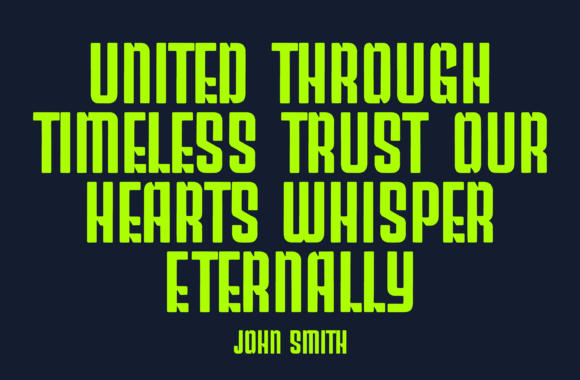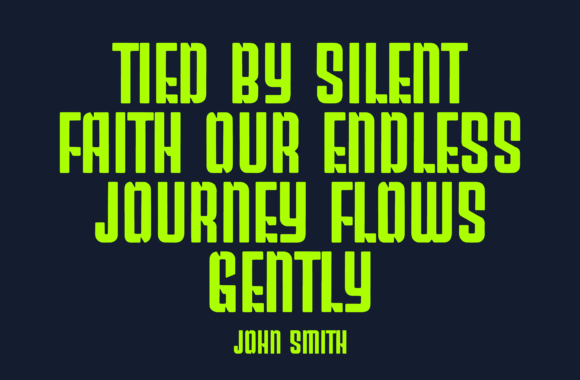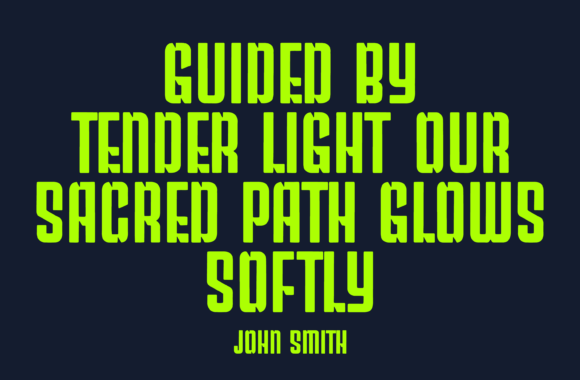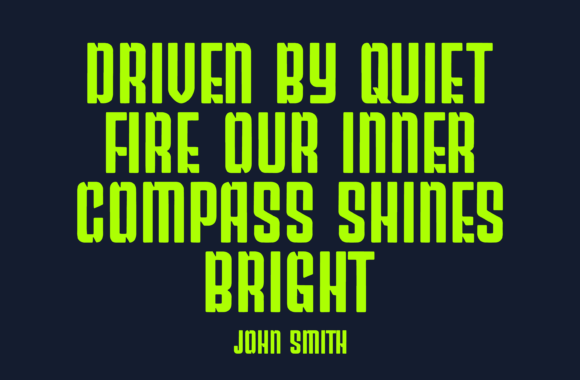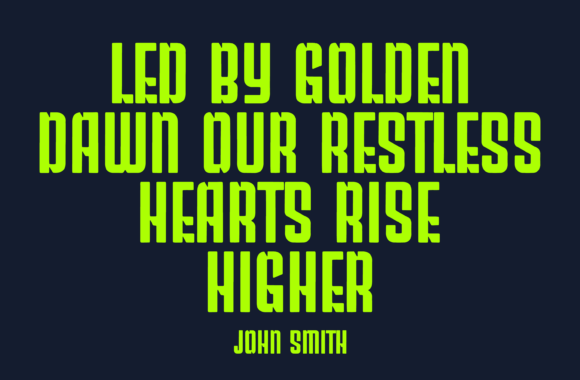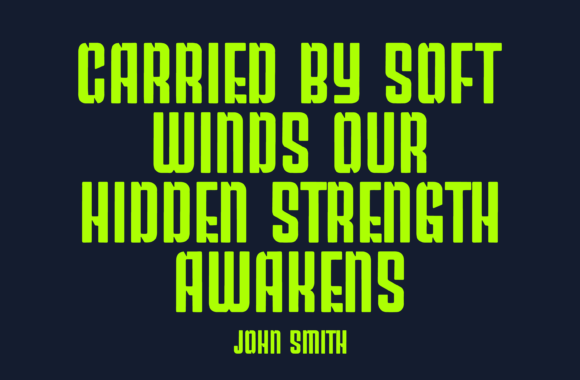
The Powerhouse of Display Fonts: A Deep Dive into Calabria Font
I’ll never forget the struggle I faced while working on a sports branding project. My client wanted a bold, eye-catching font that could convey energy and dynamism. After scouring through countless font libraries, I stumbled upon Calabria Font. Its towering, ultra-condensed design and muscular curves immediately caught my attention. I knew I had found the perfect fit. In this article, I’ll share my experience with Calabria Font, its features, and how to make the most of it in your designs.
First Impressions: What I Love About Calabria Font
Calabria Font is a force to be reckoned with. Here are some aspects that I absolutely love:
- ✨ Powerful Presence: The heavy weight and rounded edges of Calabria Font give it a commanding presence, perfect for headlines and posters.
- ✅ Versatility: Its modern design makes it suitable for various applications, including sports, streetwear, branding, and high-impact visuals.
- 💥 Impactful: The ultra-condensed design and tight spacing ensure that your message grabs attention.
While Calabria Font is an excellent choice, there are a few aspects to keep in mind:
- 🤔 Legibility at Small Sizes: Due to its condensed design, Calabria Font may not be the best choice for body text or small font sizes.
- ⚠️ Limited OpenType Features: While Calabria Font does offer some OpenType features, it may not have the extensive range of alternates or glyphs that some designers might require.
A Practical Guide to Using Calabria Font
The Story Behind Calabria Font
Calabria Font was designed with the goal of creating a powerful, attention-grabbing display font. Inspired by the sleek lines and muscular curves of modern sports cars, the font’s creator aimed to craft a typeface that exudes energy and dynamism. The result is a font that dominates headlines and posters, making it perfect for sports, streetwear, and high-impact visuals.
| Font Name | Calabria Font |
| Author | Minimalistartstudio |
| What is Calabria Font best suited for? | Calabria Font is ideal for headlines, posters, sports branding, streetwear, and high-impact visuals. |
| Is Calabria Font legible at small sizes? | Due to its condensed design, Calabria Font may not be the best choice for body text or small font sizes. |
| Does Calabria Font offer OpenType features? | Yes, Calabria Font offers some OpenType features, including glyphs and stylistic alternates. |